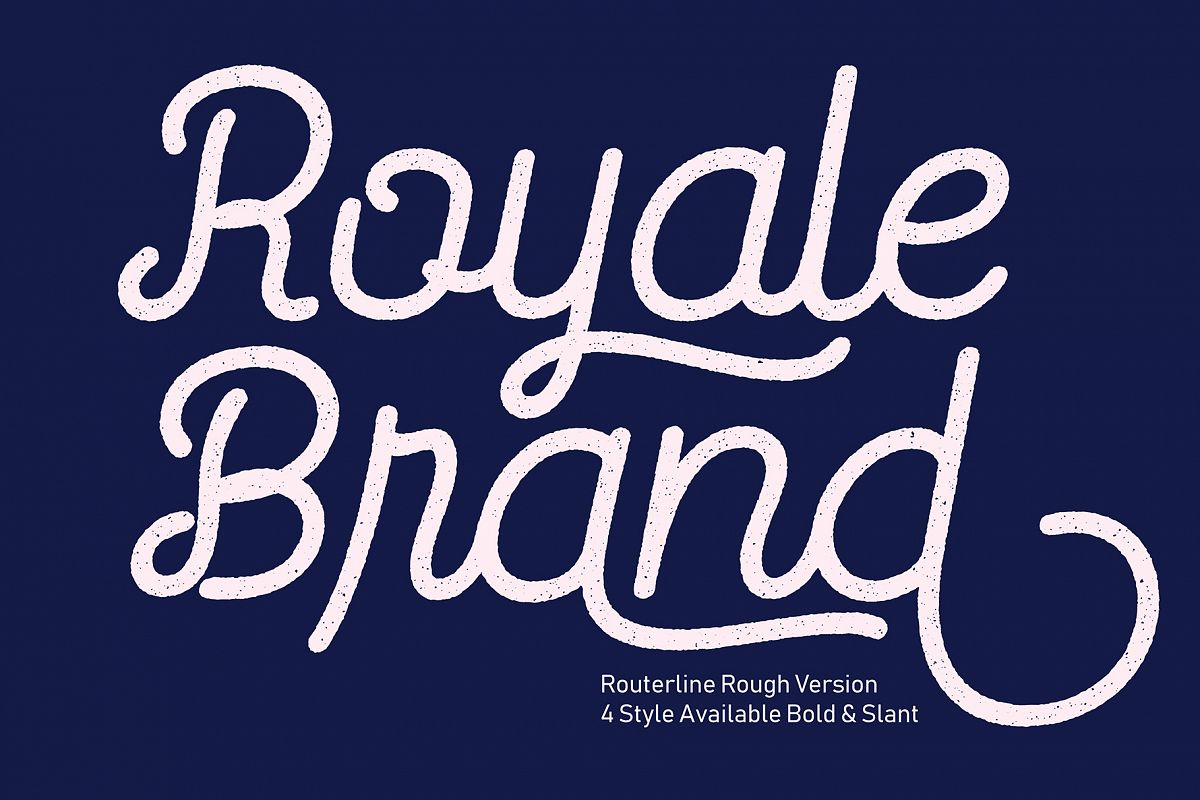
Routerline Rough
Year End Sale 35% OFF Routerline Rough is a script monoline with 4 styles, nice applied in various products. Complete with multilingual characters, ligature and alternate. It is suitable for quote, clothing design, vintage logo, label, poster, packaging design and other designs.File Include :
• UPPERCASE.
• LOWERCASE.
• MULTILINGUAL.
• PUNCTUATION & SYMBOL.
• STYLISTIC SET.
• LIGATURE.